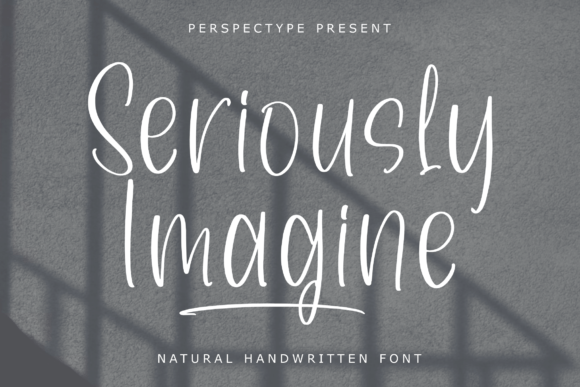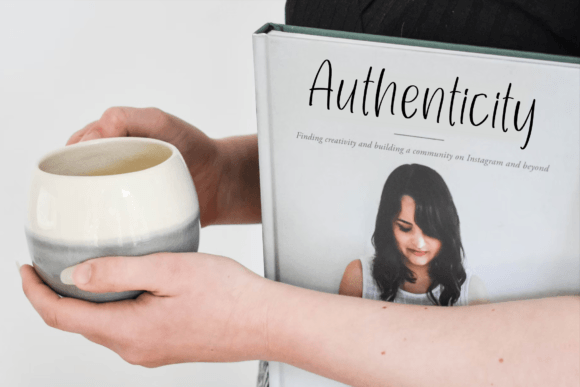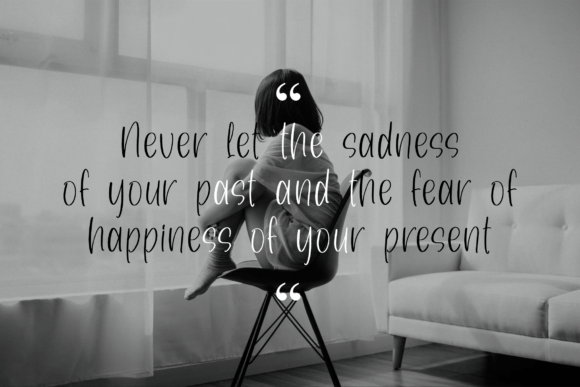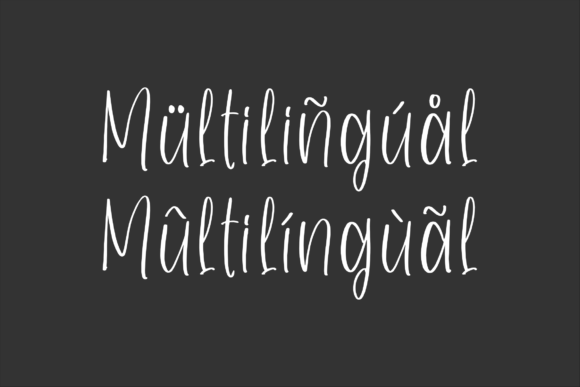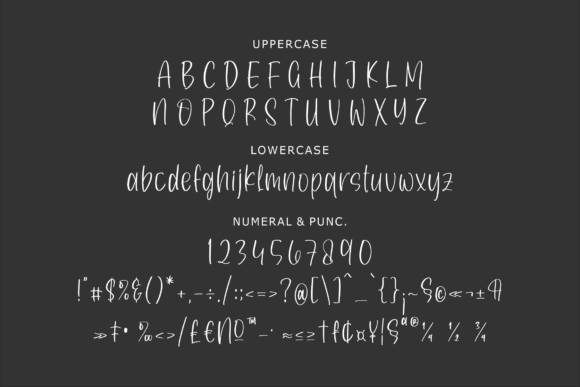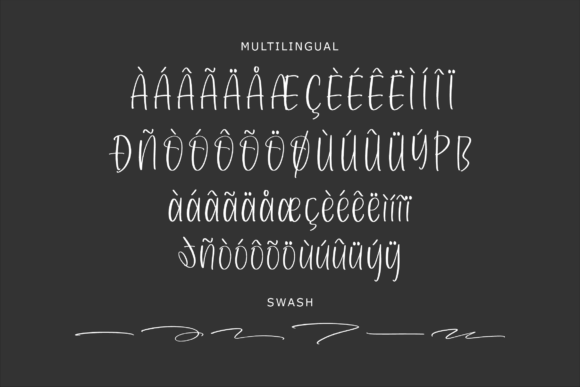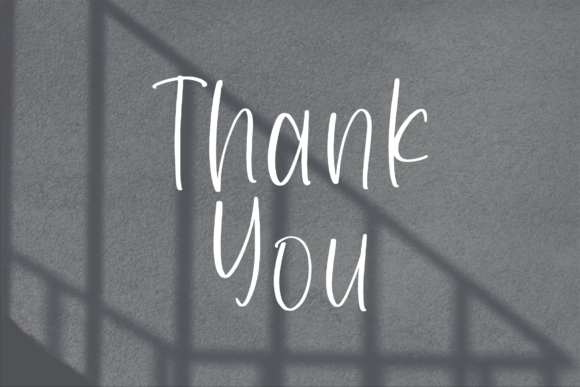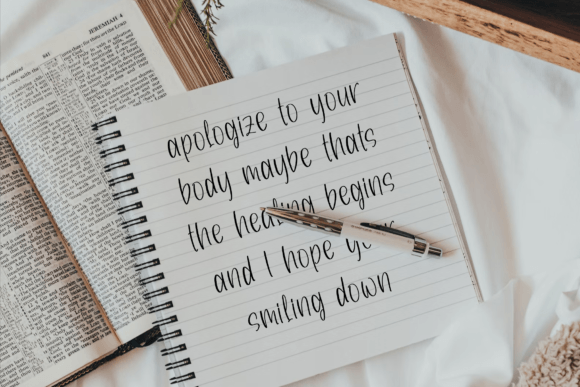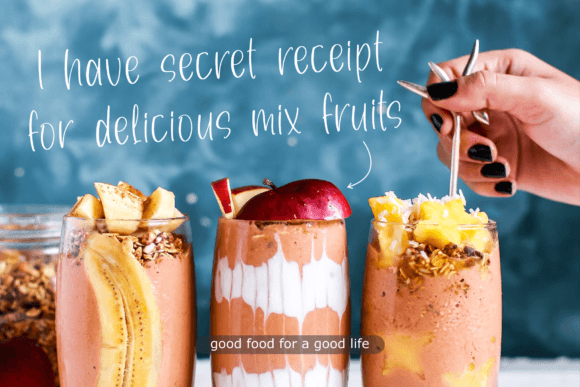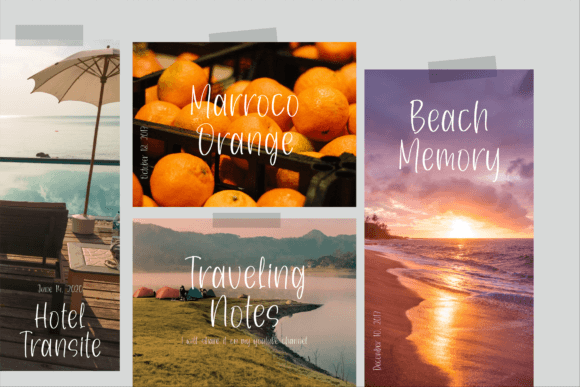
Add Elegance to Every Project with Seriously Imagine Font
Seriously Imagine Font is a natural handwritten script that brings effortless elegance and authenticity to your creative projects. Whether you’re designing for personal or professional purposes, this font offers a charming and organic handwritten style that instantly elevates your work.
A Versatile Font for Every Creative Need
Seriously Imagine is designed with flexibility in mind. Its smooth, flowing strokes and gentle curves make it suitable for a wide range of design contexts. You can use it for:
Logos and branding that require a personal and handcrafted look
Product packaging and labels with a soft, welcoming aesthetic
Homeware designs such as wall art, mugs, and decorative items
T-shirts, shopping bags, and book covers that stand out
Event invitations and greeting cards with a personal touch
This font adapts beautifully across both print and digital mediums, giving your designs a cohesive, polished, and heartfelt appearance.
Why Choose Seriously Imagine Font?
There are several reasons why Seriously Imagine Font has become a favorite among designers:
Handcrafted feel: The font mimics natural handwriting, offering warmth and personality.
Readable and stylish: Strikes a balance between clarity and elegance.
Create Emotionally Resonant Designs
Fonts are more than just letters—they carry emotional weight. Seriously Imagine Font conveys sincerity, warmth, and charm, making it perfect for emotionally driven design work. If you’re crafting a wedding invitation, creating a heartfelt quote, or designing personalized gifts, this font will give your project the emotional impact it deserves.
Pair it with clean sans-serifs for a modern contrast or use it solo for a bold handwritten statement. Either way, your message will come through beautifully.
Make Your Brand Memorable
If you’re a brand looking to stand out, using Seriously Imagine Font can help create a signature style. Its handwritten nature offers a human touch that resonates with audiences and builds trust. Whether you’re a small business, freelancer, or artist, this font gives your brand an authentic and stylish voice.
To sum up, Seriously Imagine Font is a beautifully natural handwritten script designed for versatility and impact. Its handcrafted style, easy usability, and wide application make it a perfect choice for everything from logos and labels to event materials and quotes. Add this elegant font to your toolkit and watch your creative visions come to life.